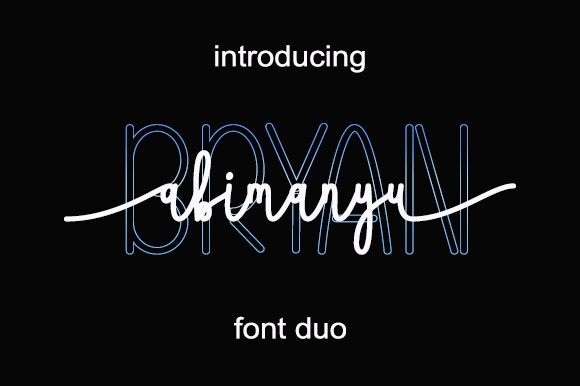
Bryan
Bryan, designed by Cavalera Creative, is a captivating display font that adds a touch of sophistication and elegance to your projects. With its unique outlined style, Bryan brings a modern and contemporary feel to any design. The light weight of the font adds an airy and delicate element, while the condensed width allows for maximum impact in limited space.
Perfect for branding, packaging, or editorial designs, this font will effortlessly elevate your projects and leave a lasting impression on your audience.